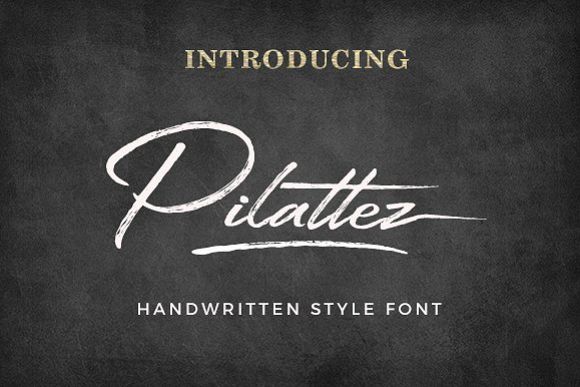
Pilattez
Pilattez Swashes
Pilattez Font
Pilattez Font is a passionate handwritten font with signature style and dry strokes, it is very suitable for Branding, product packaging, name tag, merchandise, quotes and business cards. Pilattez Font consist of upper and lowercase letters, a large range of punctuation, numerals, multilingual support, several ligatures, For stylistic alternates and stylistic sets for lowercase characters, can access with Adobe Illustrator, Adobe Photoshop, Adobe Indesign (with Glyph Panel and Open Type). Pilattez Font also has Swashes to make beautifull combination for end tag between the word and the underline.